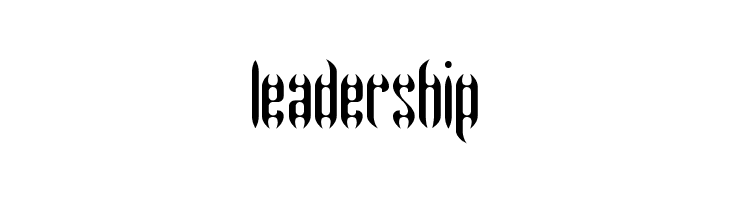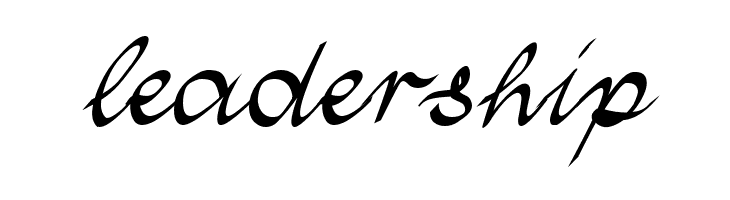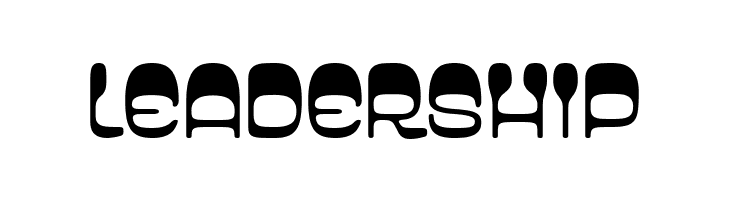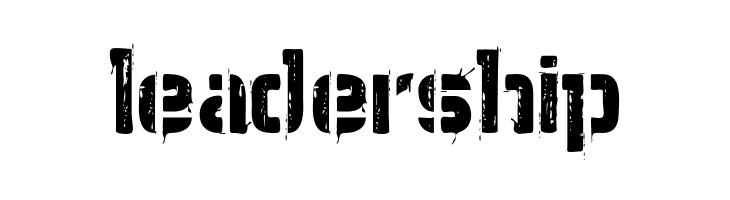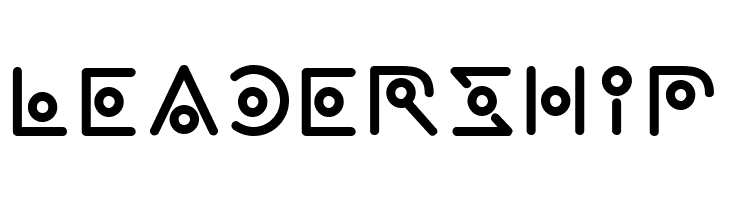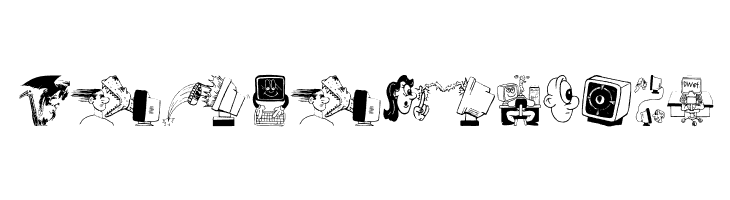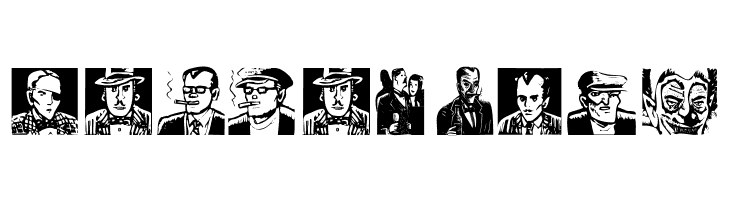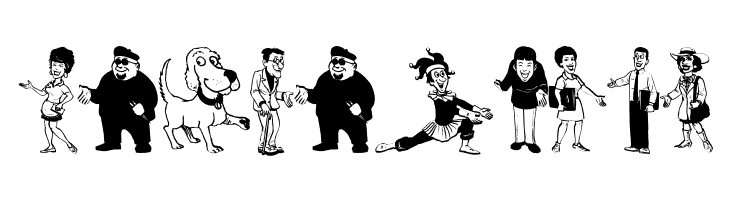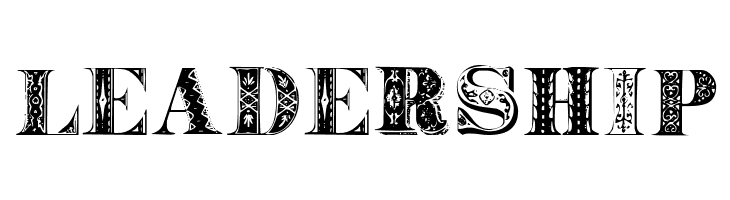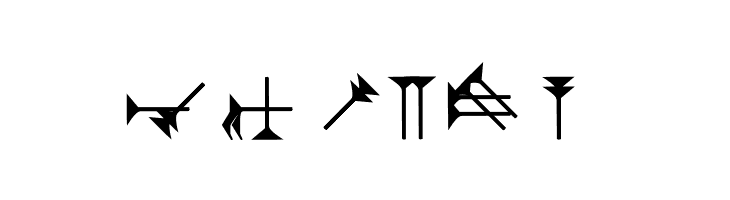
An artistic font with ink splatter-inspired characters, offering a chaotic and expressive style.
A bold, distressed font with a rugged, graffiti-like appearance.
A bold, perforated stencil font with a modern industrial aesthetic.
A collection of artistic and illustrative designs, each character is a unique scene or object.
A highly stylized, abstract font with angular, wedge-like shapes.
A dynamic, brush-like font with an expressive, hand-drawn style.
A bold, rounded font with a futuristic and playful style.
An artistic font featuring human figures forming each character.
A bold, medieval-inspired font with sharp, angular characters and a historical aesthetic.
A decorative, illustrated font featuring vintage comic-style portraits and scenes.
A decorative serif font with elegant swashes and flourishes.
A playful, witch-themed pictorial display font.
A decorative font featuring whimsical and artistic illustrations within each character.
A dynamic and fluid script font with elegant, flowing cursive letters.
A dynamic and elegant script font with flowing, connected letterforms.
A bold, dynamic script font with connected characters and a strong presence.
A bold, dynamic script font with fluid, connected letterforms.
A decorative font made from human figure illustrations.
A bold, vintage-style serif font with decorative elements and strong presence.
A bold, vintage-style slab serif font with strong, uniform characters.
A modern, geometric font with clean lines and a slightly condensed style.
A playful, hand-drawn style font with rounded edges and consistent stroke width.
An illustrative, cartoon-style decorative font with unique artwork for each character.
A bold, angular font with a geometric and impactful style.
A bold, gothic-inspired font with sharp, angular edges and pointed serifs.
A bold, decorative font with wing-like extensions and a gothic flair.
A bold, brush-stroke inspired font with a calligraphic flair.
A bold, angular font with a calligraphic and graffiti-inspired style.
A bold, italicized font with sharp, angular lines and a dynamic style.